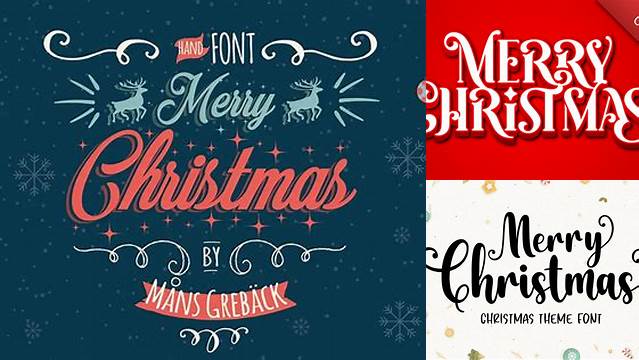
Free Merry Christmas Font Downloads: Style Guide
Hey everyone! Christmas is just around the corner, and you know what that means – time to get those holiday cards, flyers, and social media posts looking festive! And what's the easiest way to do that? You guessed it: awesome Christmas fonts! Lucky for you, I'm going to dive deep into the world of free Merry Christmas font style free downloads. We'll explore some amazing font styles, where to find them, and how to use them to make your designs pop. Get ready to deck the halls (or at least your digital spaces) with some seriously stylish typography!
Finding the Best Free Christmas Fonts: Your Ultimate Guide
So, you're on the hunt for the perfect free Merry Christmas font style free download? Awesome! Let's start with the basics. The internet is overflowing with fonts, but not all are created equal. You want fonts that are not only visually appealing but also legally usable. That's where understanding licensing comes in. Always check the license of a font before you download and use it. Most free Merry Christmas font style free download options will be either free for personal use or come with a more open license for commercial projects. Look for licenses like SIL Open Font License or fonts that explicitly state they are free to use. This prevents any legal headaches later on. Now, where to find these gems? Google Fonts is a fantastic starting point, offering a massive library of free fonts, including many that are perfect for Christmas. Just search for keywords like "holiday", "festive", or "script". Websites like DaFont and Font Squirrel are also great resources, but always double-check the licensing. Another tip is to explore websites that offer design bundles; sometimes, you can snag a set of fonts, including holiday ones, for a one-time price. Remember, the goal is to find fonts that express the Christmas spirit. Look for fonts that evoke feelings of joy, warmth, and tradition. Consider the overall vibe you want to create.
Christmas Font Styles: From Classic to Modern
Alright, let's talk style! What kind of fonts scream "Christmas" to you? Well, the good news is that there is a wide variety of free Merry Christmas font style free download choices to consider. Here are some popular categories to get you started. First, we have the classic script fonts. These are fonts that mimic elegant handwriting, often used for invitations, greeting cards, and anything that needs a touch of sophistication. Think of swirling serifs, elegant curves, and a timeless appeal. Script fonts can be a great way to make your designs feel personal and handcrafted. Next up are the festive display fonts. These fonts are often bolder, more playful, and designed to grab attention. You might find fonts with decorative elements like snowflakes, stars, or holly leaves built right in. Display fonts are perfect for headlines, posters, and social media graphics. Think about the classic "Christmas" font style. Then there are modern sans-serif fonts. These are clean, minimalist fonts that are great for contemporary designs. They can be a great way to balance out a more elaborate design or give it a more modern touch. If you're feeling adventurous, consider using a combination of these fonts. A script font for your main message, a display font for a holiday greeting, and a sans-serif font for the body text. The best way to find your favorites is to browse!
Christmas Font Pairing: Harmonizing Styles
So, you've found some awesome free Merry Christmas font style free download fonts, but now what? Pairing fonts is the art of combining different styles to create visually appealing designs. It's all about finding fonts that complement each other. When choosing font pairings, think about contrast, harmony, and readability. One approach is to combine a script font with a clean sans-serif font. The script font can be used for headlines or greetings, adding a touch of elegance, while the sans-serif provides a clear, easy-to-read body text. Consider the visual weight of the fonts. Use a bolder font for headlines and a lighter font for body text. This helps to create a hierarchy of information. Another strategy is to pair fonts that share a similar design aesthetic. A combination of fonts with rounded shapes or fonts that share a similar style of serif. Always consider the overall mood you are trying to create. If you are aiming for a classic Christmas look, choose a traditional script font along with a serif. If you want something more modern, a simple sans-serif font paired with a display font might work.
Creating Stunning Christmas Cards with Your Fonts
Let's get those Christmas cards ready with your awesome free Merry Christmas font style free download fonts! First, plan your design. Decide on the overall look and feel you want for your card. Next, select your fonts. Choose a script font for the greeting, "Merry Christmas," and a complementary sans-serif font for additional text, like the family name or the year. Now, create your layout. Use a program like Canva or Adobe Spark to design your card. Create a visual hierarchy, using the script font for the greeting, and the sans-serif for other text. Use a background. Add a festive background to complement your fonts. Be creative with colors, such as red, green, and gold. Add images and embellishments. Include Christmas-themed images or illustrations to enhance your design. Consider adding borders, ornaments, or illustrations to the background. Consider the placement of all the elements. Make sure that the text, the background, and the images are placed correctly. Always preview. Preview your design to ensure that it looks good before printing or sharing digitally. Finally, add a personal touch. Make your card unique by including a personal message.
Designing Festive Social Media Posts with Christmas Fonts
Let's make your social media presence sparkle this Christmas with your free Merry Christmas font style free download options! When designing social media posts, choose a platform like Instagram, Facebook, or Pinterest. Now select your fonts. Choose a font that complements your brand and your overall message. Create your content. Design a visually appealing post that is relevant to your audience and their interests. Add a compelling image or video, and use your font to craft a captivating message. Ensure that your fonts are readable and work well together. Use a font pairing to make the text visually appealing. Consider the size of the text and the contrast of the fonts. Use a background. Add a festive background that complements your fonts and images. Add a strong call to action. Use a clear call to action in your post to encourage engagement. Schedule and publish your posts. Use social media scheduling tools to ensure that your posts are published when your audience is most active. Analyze the results. Always review your social media posts to measure their performance. Adjust your future posts based on your analytics.
Mastering Free Christmas Fonts: Your Design Toolkit
So, there you have it! You've now got a solid foundation for finding and using free Merry Christmas font style free download fonts for all your holiday projects. Remember, the key is to experiment, have fun, and let your creativity shine. Keep these tips in mind, and you'll be creating stunning Christmas designs in no time! You've got this!